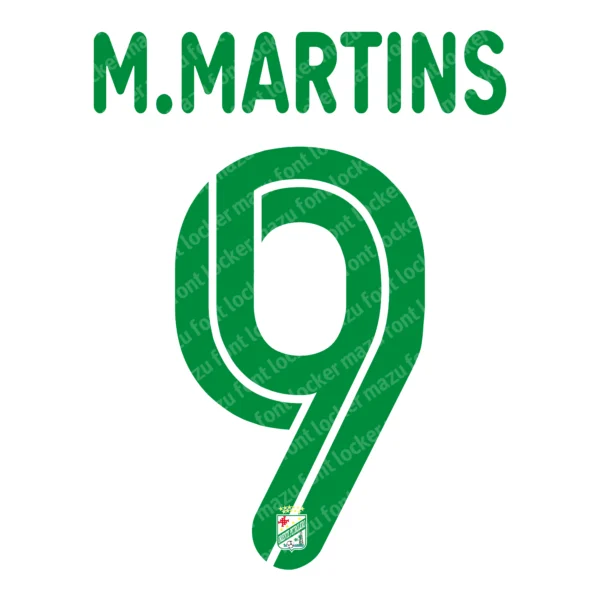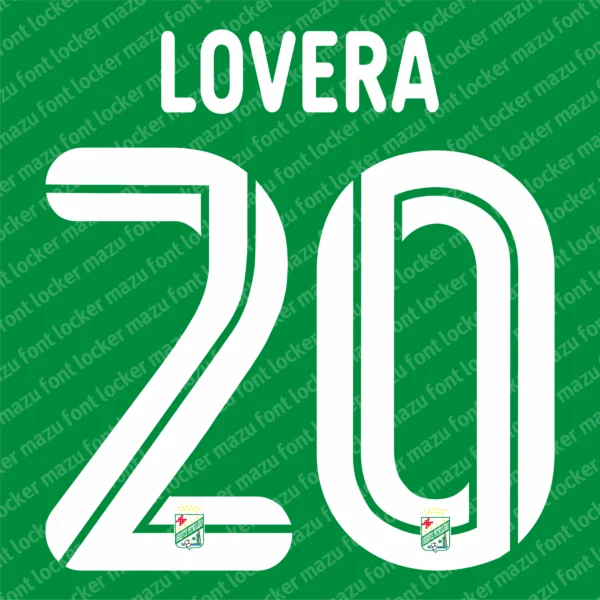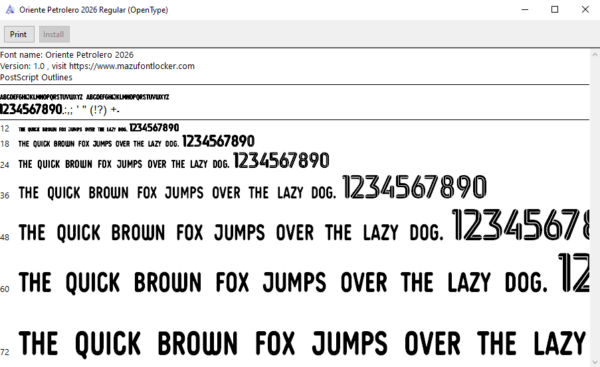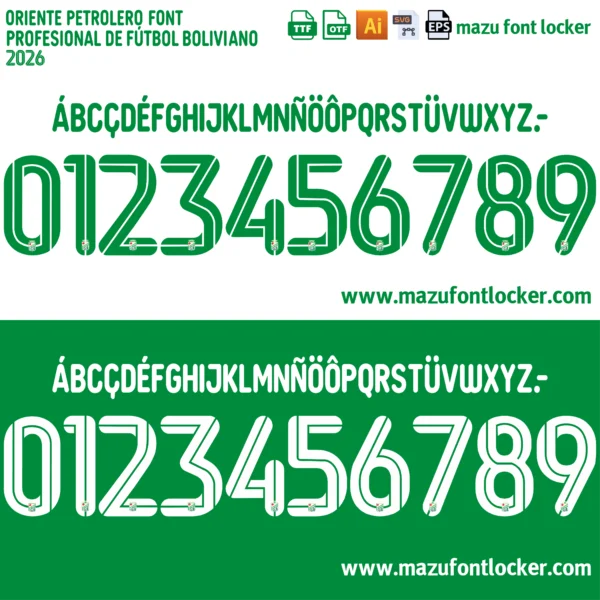
Oriente Petrolero 2026 Font – Explosive Verde Masterpiece
The Oriente Petrolero 2026 Font accurately recreates the bold match-style lettering worn by the club during the 2026 Bolivian Primera División season. This font captures the strong and energetic typography of the Verdolagas’ official kit, ideal for authentic jersey mockups, fan merchandise, football graphics, and supporter designs.
Oriente Petrolero 2026 Font – Authentic Bolivian Club Typeface
The Oriente Petrolero 2026 Font is a premium typeface that accurately recreates the official match lettering worn by Oriente Petrolero during the 2026 season. This high-quality font kit captures the bold, energetic, and modern typography that represents the Green Devils’ latest kit design.
Designed for professional designers and passionate Oriente Petrolero fans, the Oriente Petrolero 2026 Font delivers perfect authenticity for creating jersey mockups, fan merchandise, matchday posters, social media graphics, and much more. It blends beautifully with the club’s iconic green and white colors.
Why Choose Oriente Petrolero 2026 Font
This font stands out because of its sharp details and strong club identity. Every letter and number is crafted to match the exact style used on the players’ shirts in the 2026 season. Whether you are making realistic shirt templates or eye-catching football content, the Oriente Petrolero 2026 Font gives your designs that authentic Bolivian Primera División look.
The letterforms in the Oriente Petrolero 2026 Font are tall, bold, and highly readable. The strokes have a strong and controlled weight that looks powerful on the back of jerseys while maintaining excellent clarity.
The numerals use bold curves and firm edges, giving them a modern and confident appearance. This design ensures great legibility whether used in large print formats, digital mockups, or video content.
• Full uppercase A–Z and numbers 0–9 in authentic Oriente Petrolero 2026 style
• Special Oriente Petrolero logo glyph for accurate shirt number detailing
• Create highly realistic Bolivian league jersey mockups with accurate lettering
• Design stunning matchday posters, score graphics, and squad announcements
• Produce custom Oriente Petrolero merchandise with a professional football aesthetic
• Includes the exact logo glyph placement used under player numbers
Oriente Petrolero in the 2026 Season